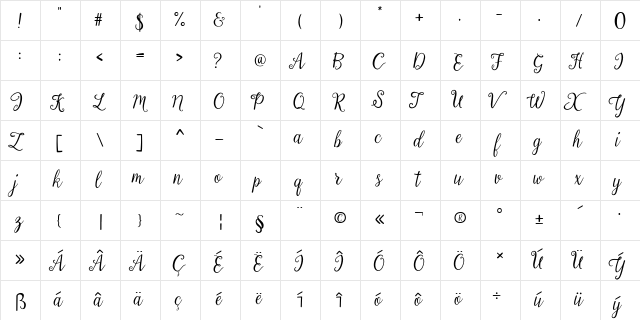
Calista Regular
| Foundry | Vero Studio |
| Designer | Vero Studio |
Design Context for Calista Typeface
Calista is a composed and adaptable typeface that performs quietly and consistently across a wide range of design contexts.